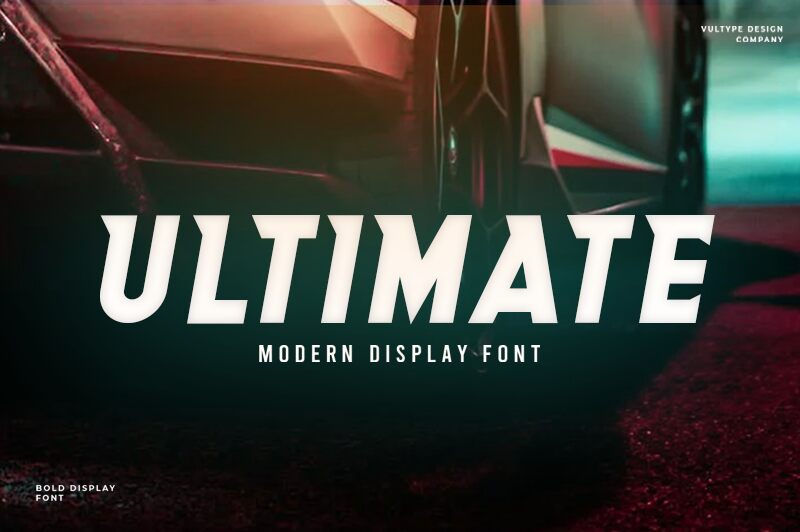
Ultimate
Striking and authoritative, Ultimate by Vultype exudes a bold, technological allure. This condensed display font's sharp, angular forms and solid weight create an undeniably impactful visual statement. With its sleek, futuristic aesthetic, Ultimate effortlessly commands attention, seamlessly blending modern sophistication and raw power.
Ultimate's versatility shines through its ability to elevate a wide range of design projects. From bold branding and eye-catching headlines to dynamic digital interfaces and immersive gaming experiences, this font's compelling presence lends an air of cutting-edge modernity. Designers seeking to craft a bold, futuristic aesthetic will find Ultimate an invaluable asset in their creative toolkit.